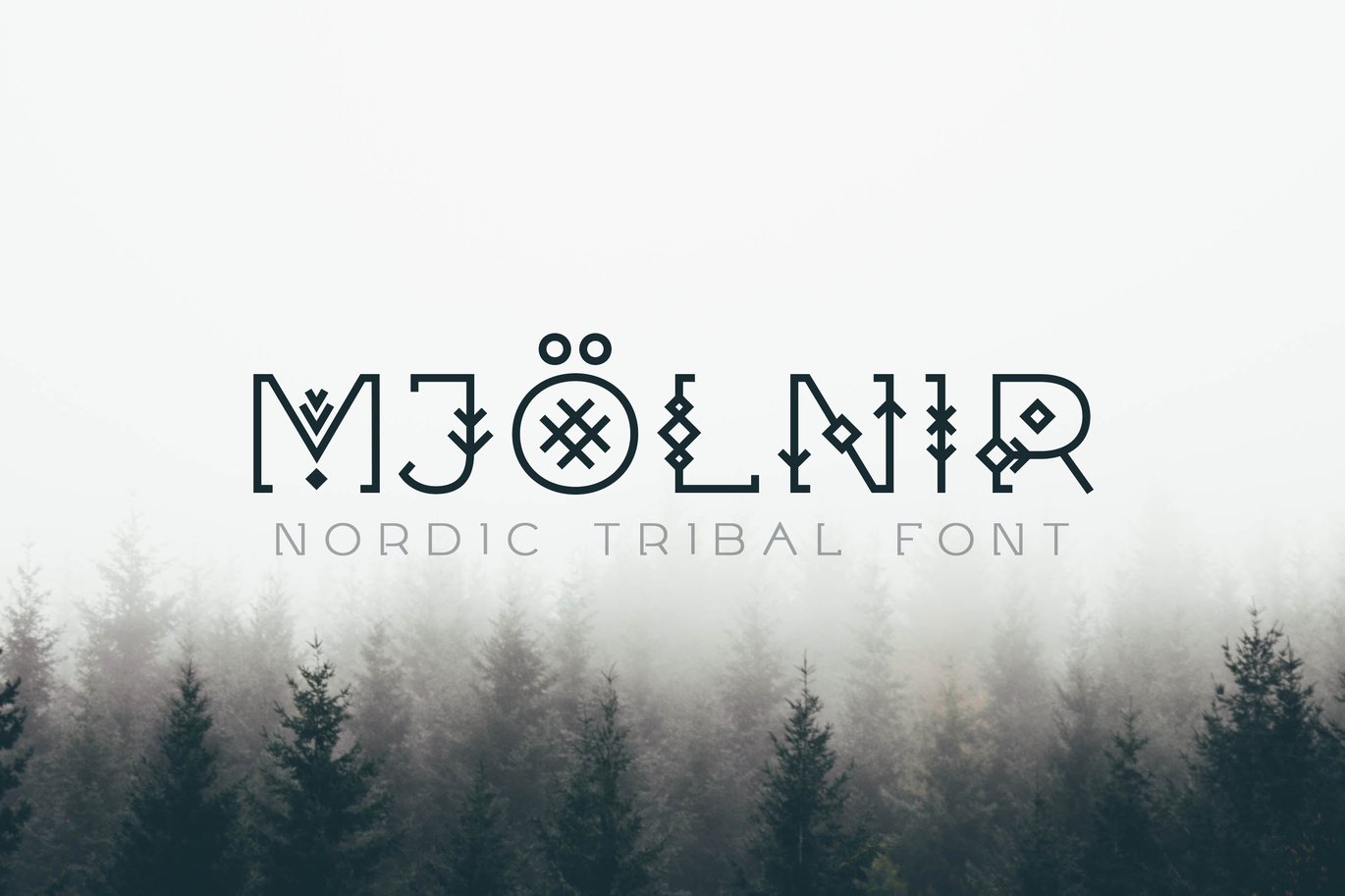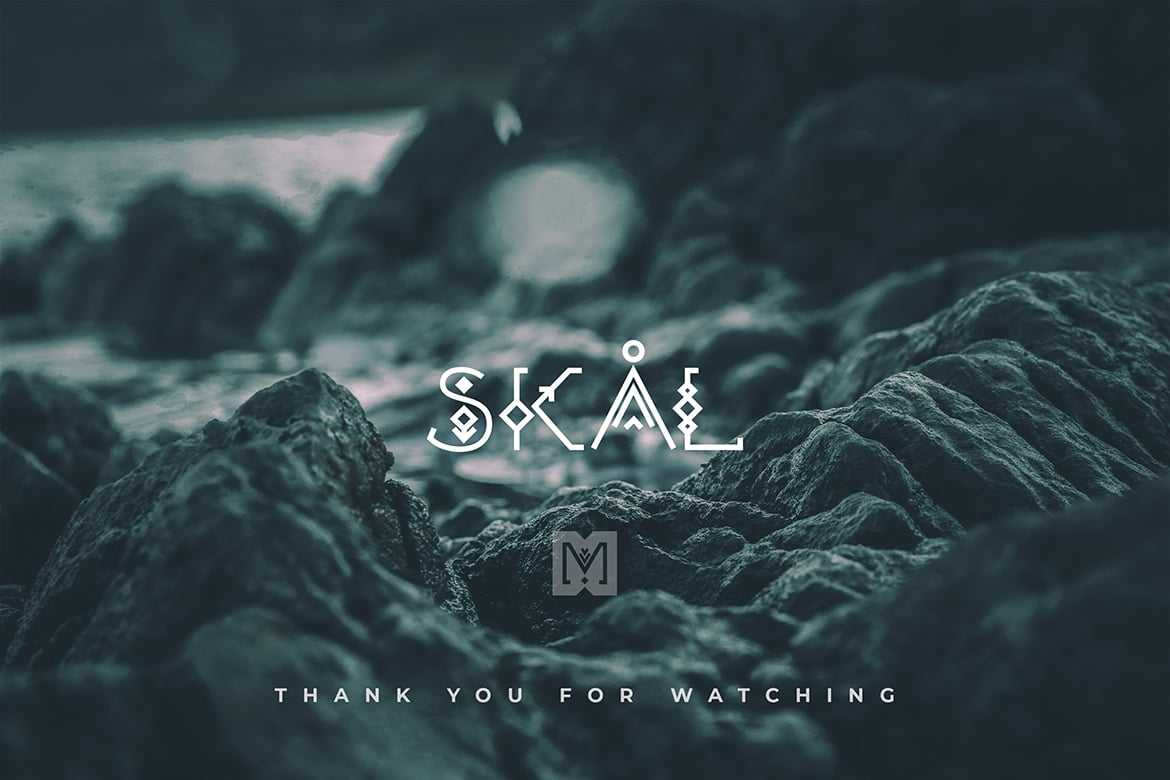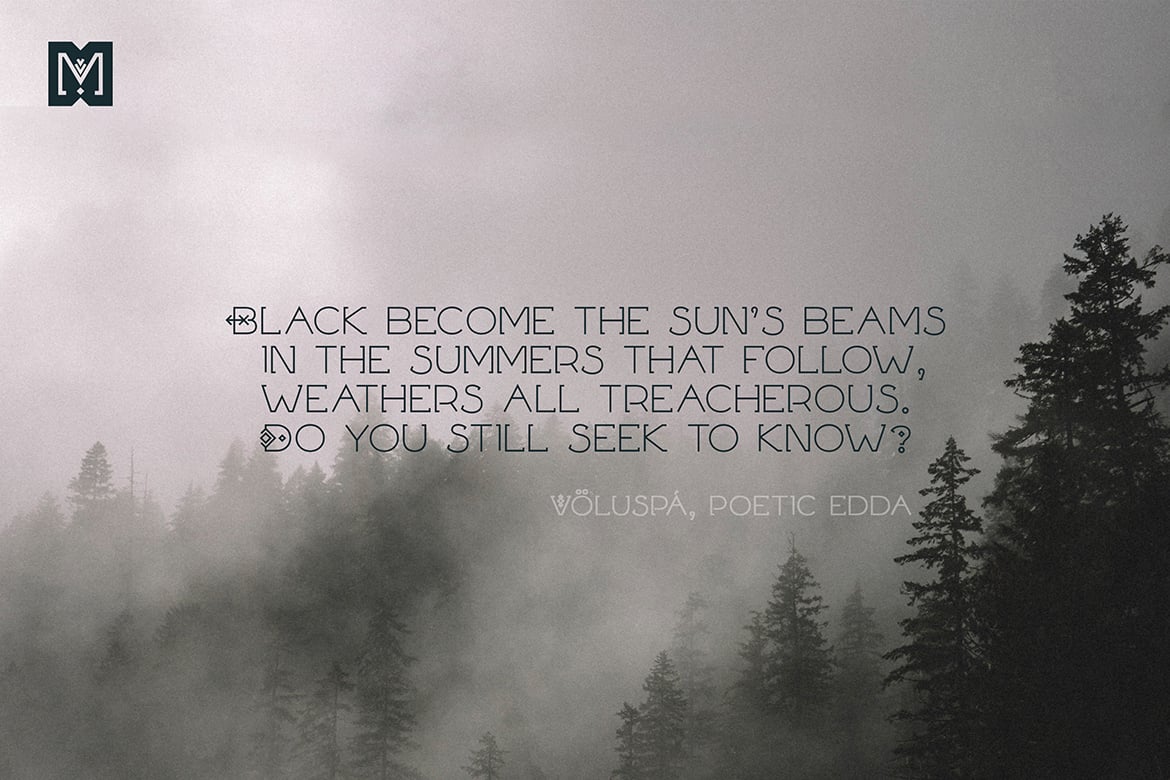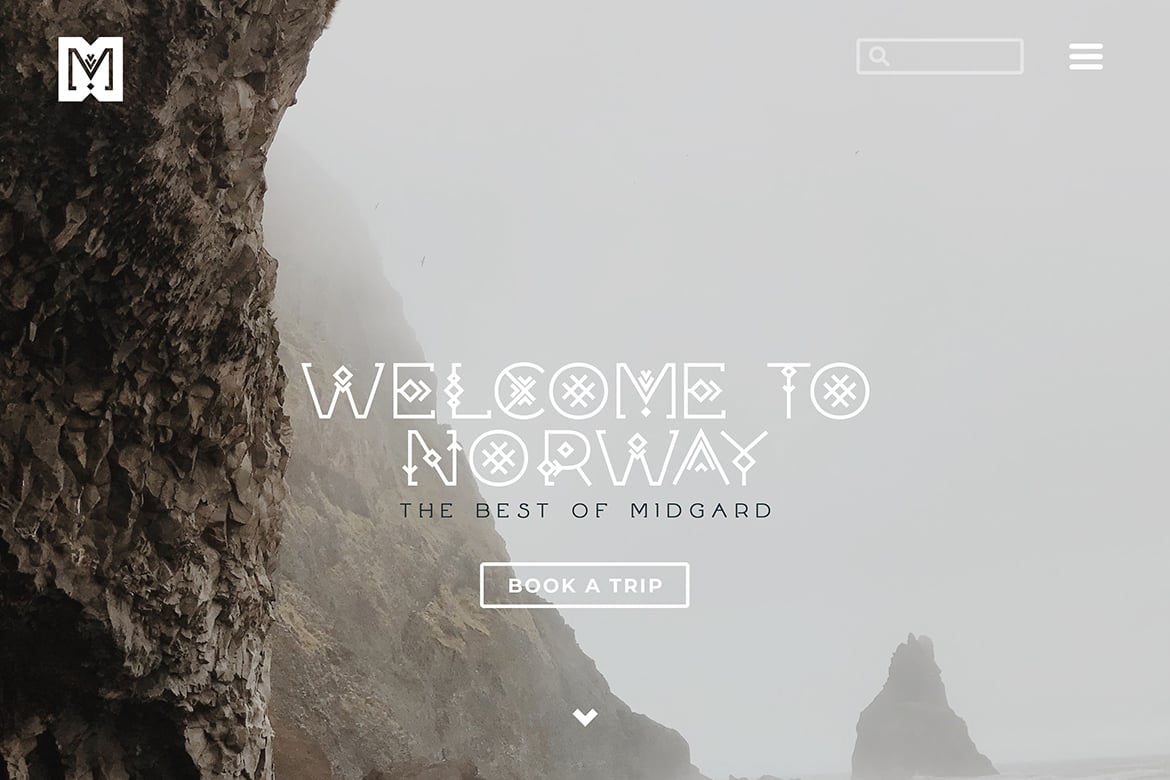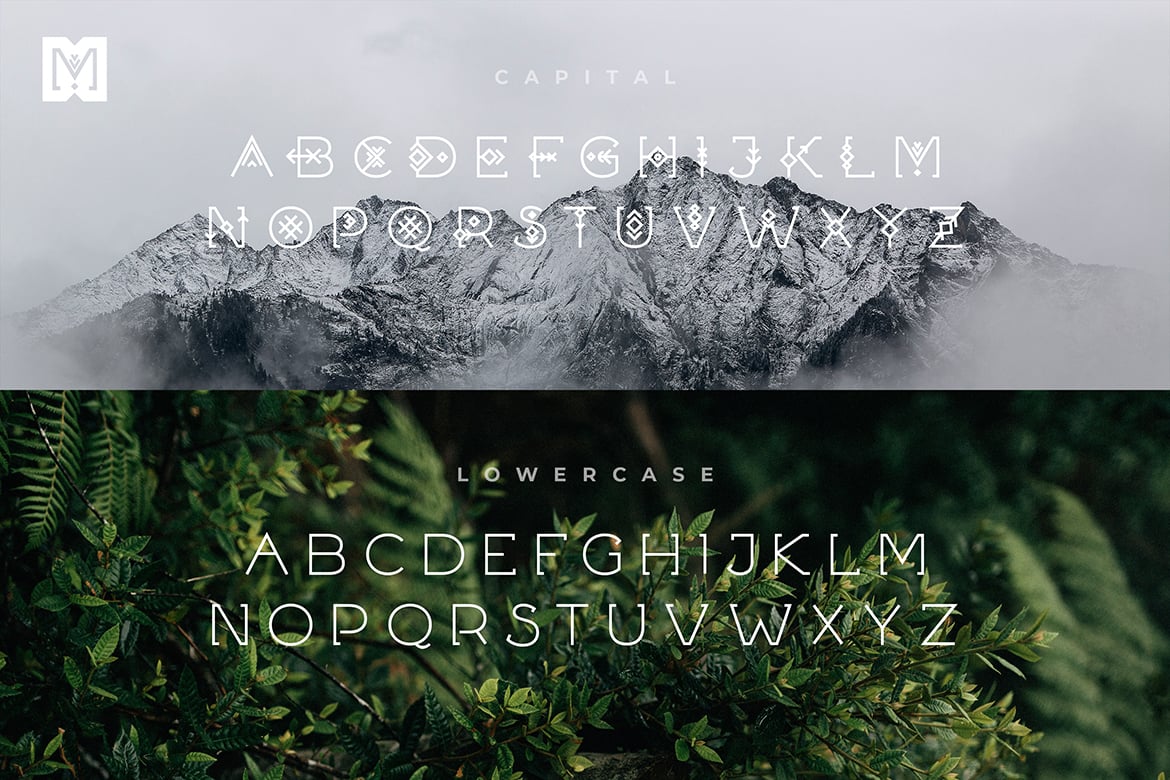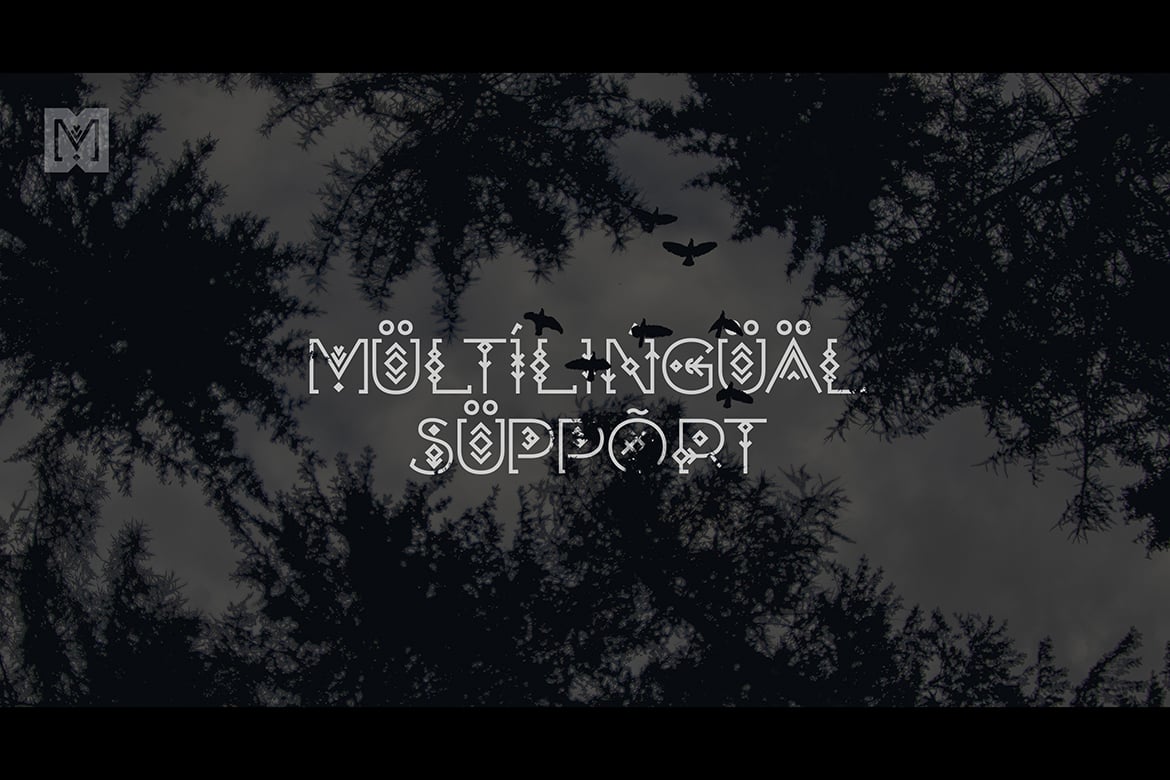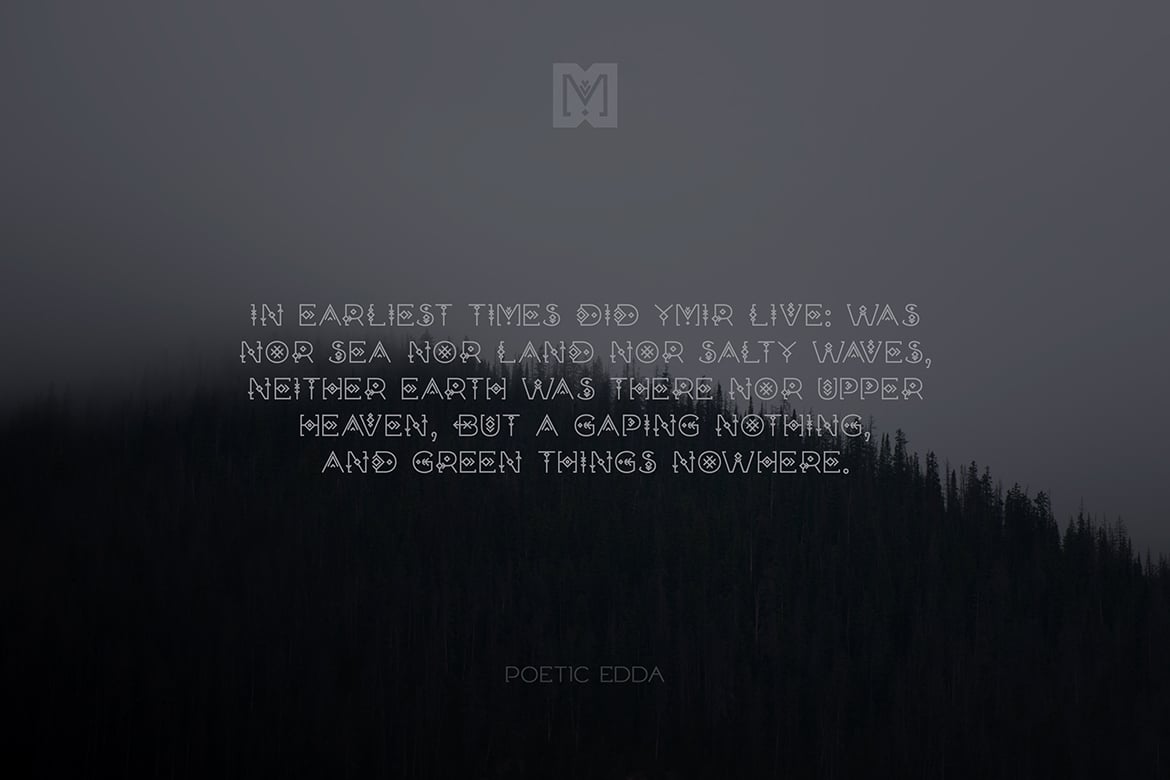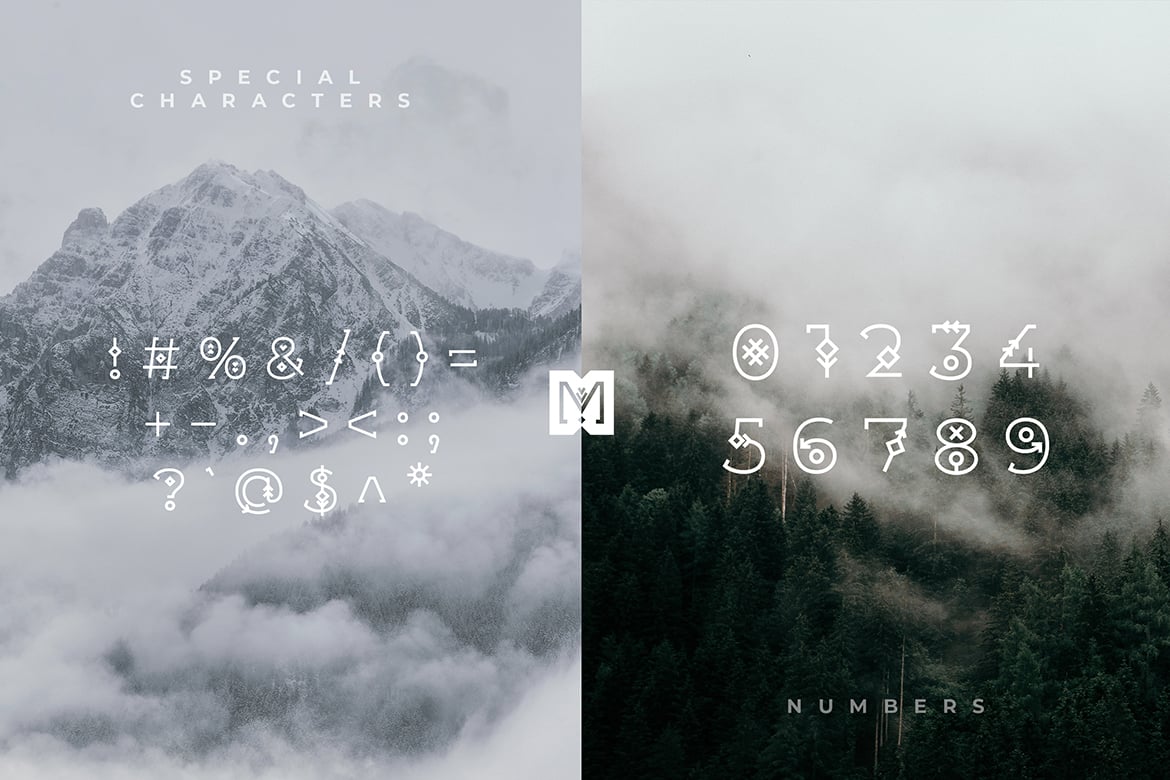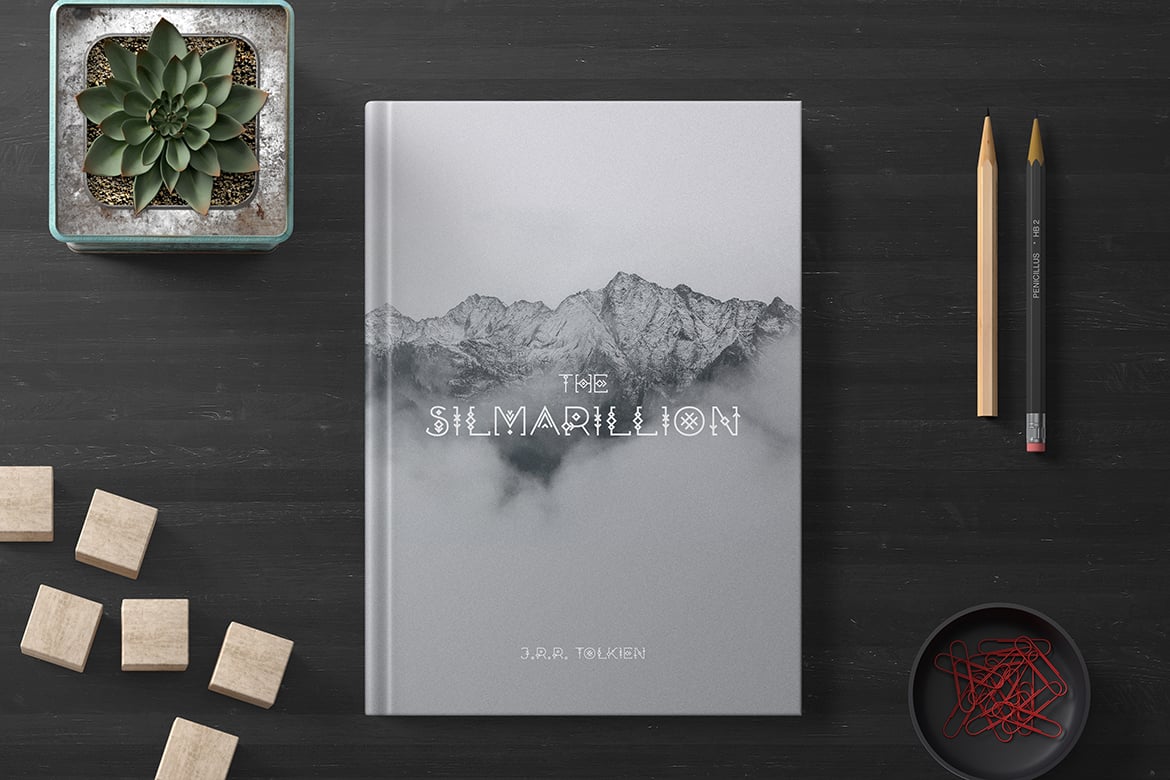
Mjölnir – Nordic Tribal Font
Introducing Mjölnir – a tribal font inspired by the nordic runes and the viking era.
This tribal font is meant to be used for headlines, titles, logos, posters, flyers, etc – anything that requires a unique geometric typeface with tribal motif.
The font has uppercase and lowercase characters, special glyphs and multilingual support.